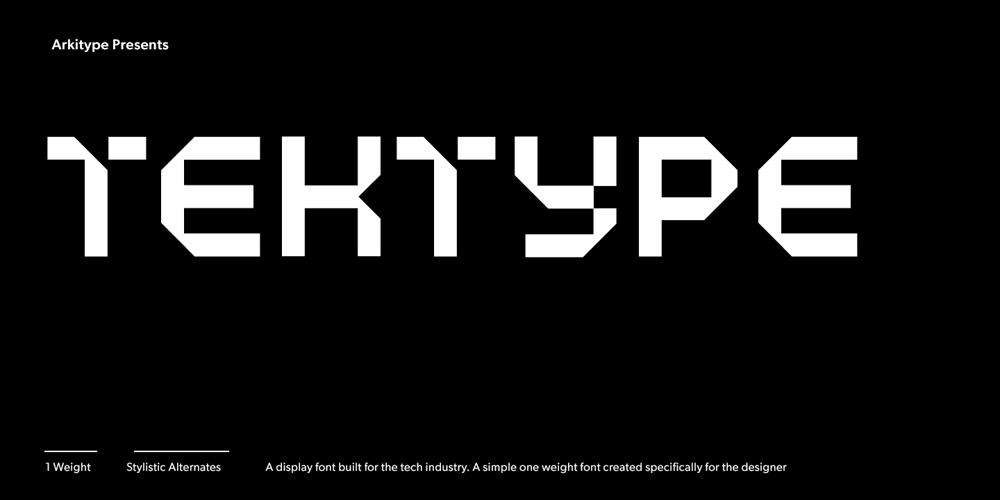
Tektype
Tektype font
Tektype Font Family was designed by Andrew Footit and published by Arkitype. Tektype contains 1 styles and family package options. Tektype has been designed as a one weight display don’t font which makes it simple and easy to use, it has been specifically created for the designer to do very little customisation. Tektype has additional alternates which makes it versatile in use. Create Logos and unique identities, aimed at the tech industry this font can create a slick look and feel to any branding.